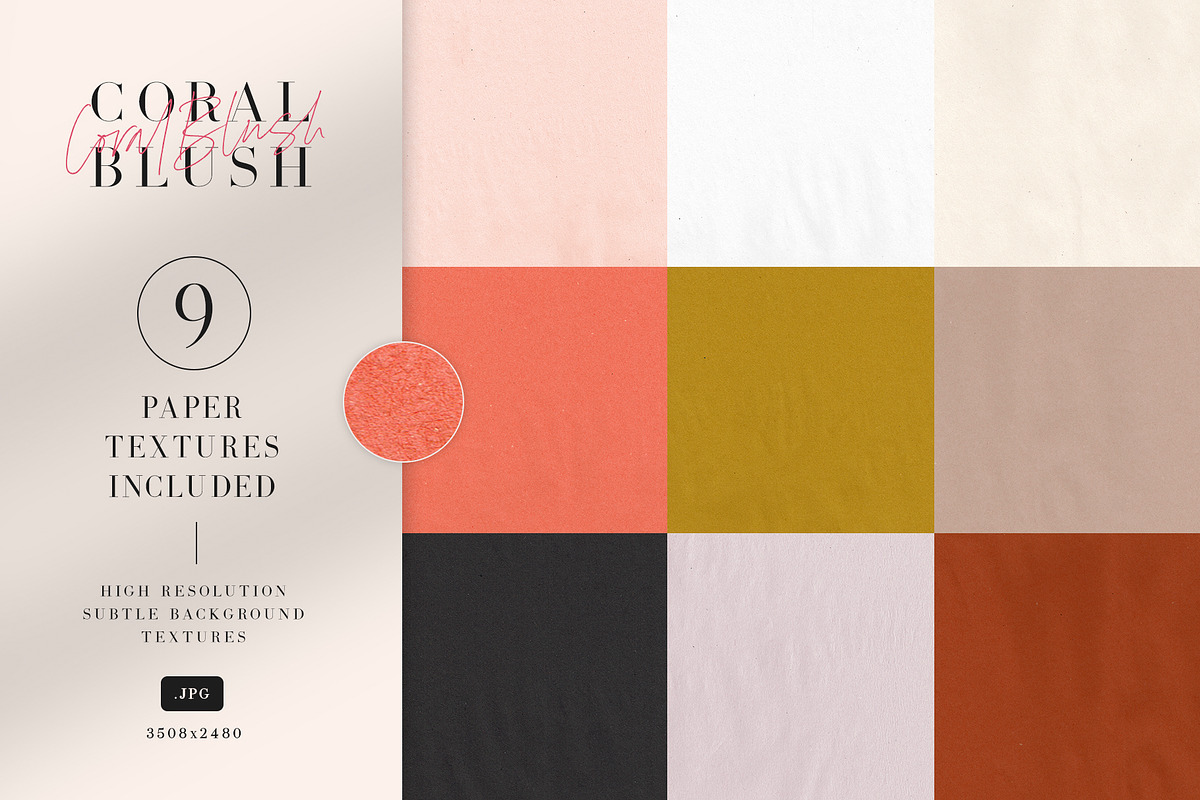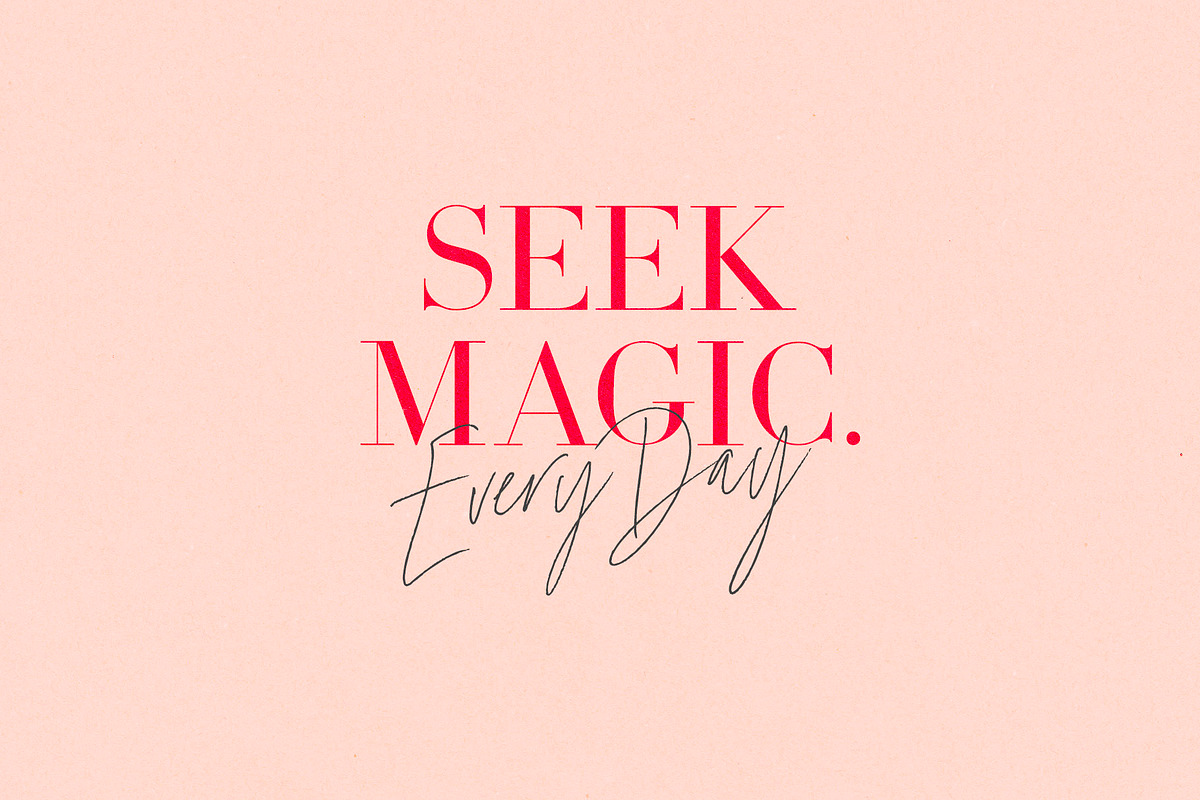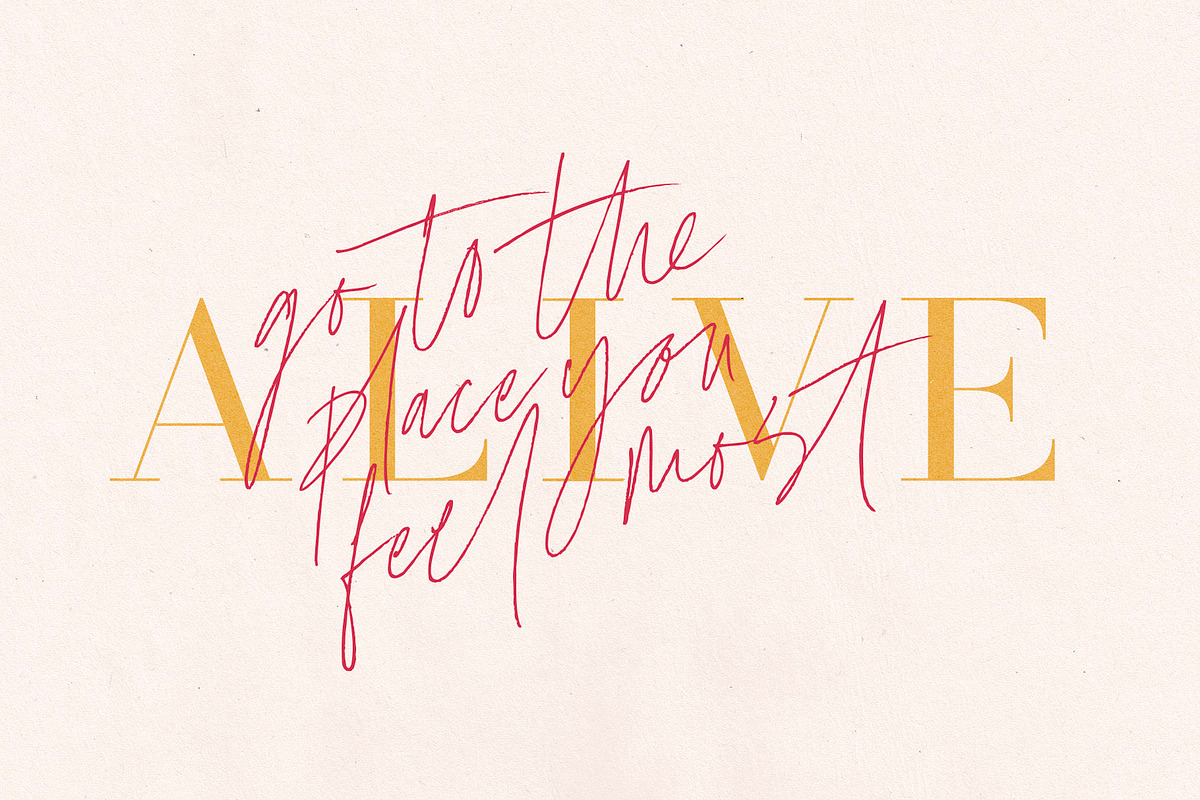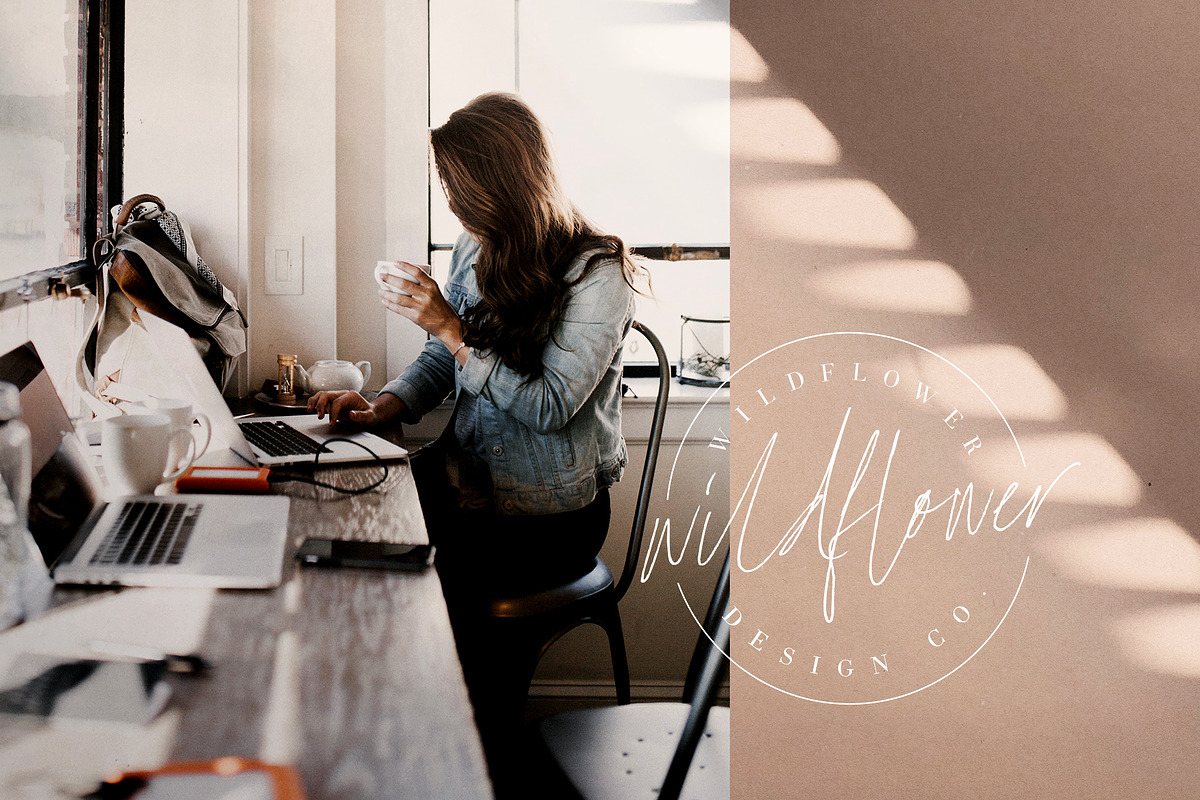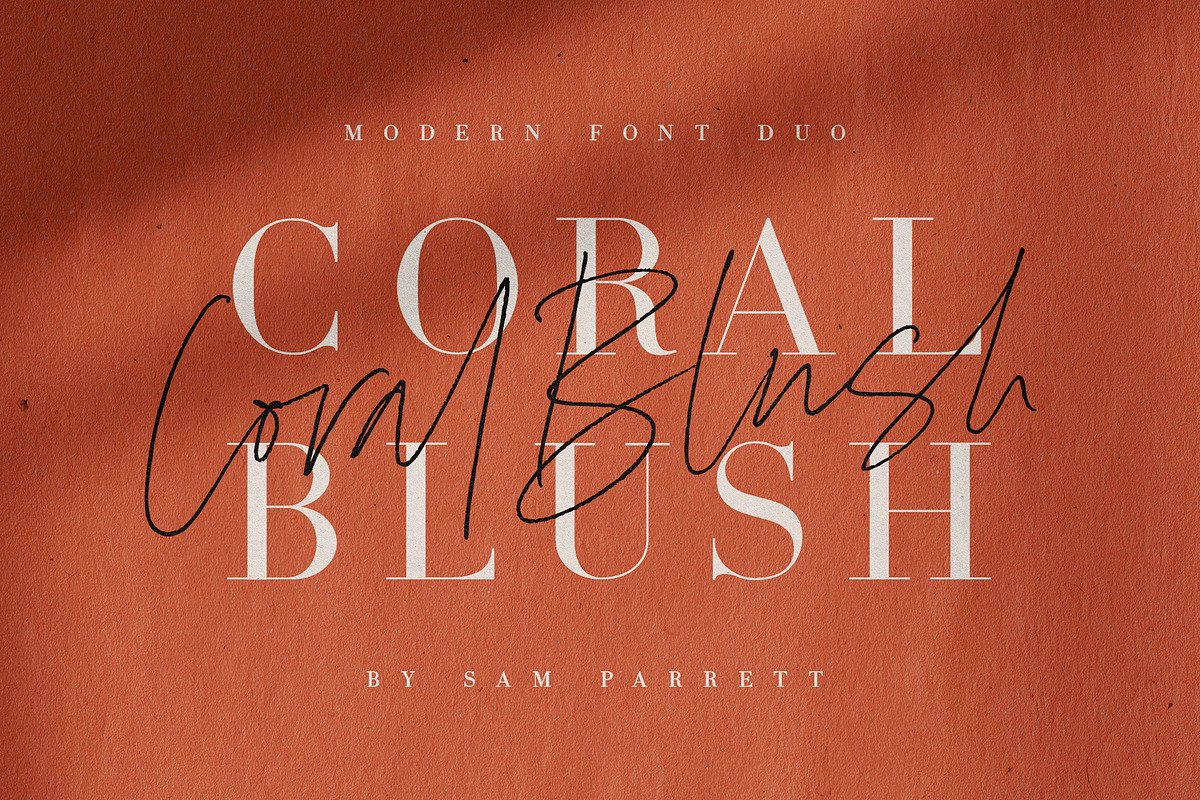
Coral Blush Font Duo
Explore a stunning typography pairing with Coral Blush; a carefully crafted and perfectly balanced set of elegant serif and realistic script typefaces. Also included are 9 subtle paper textures, allowing you to jump right in and create stunning designs within minutes.
Coral Blush Serif • An all-caps Serif font containing uppercase, all punctuation & numerals.
Coral Blush Script • A thin and realistic textured handwriting font, hand-drawn with a real fine-tip pen. Contains, lowercase, uppercase, all punctuation & numerals. Also includes 88 built-in ligatures.
Coral Blush Script Alt • This is a second version of Montrose Script, with a completely new set of upper & lowercase characters.
88 Script Ligatures • Coral Blush Script fonts contain 88 ligatures (double letter glyphs) to help your text flow more naturally and recreate authentic, handwritten text. Many programs will automatically have this feature switched on for you, but if you need any help accessing them, please feel free to drop me a message.